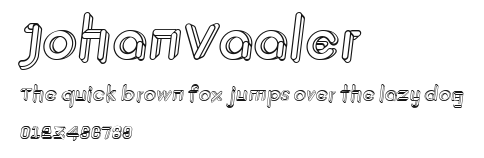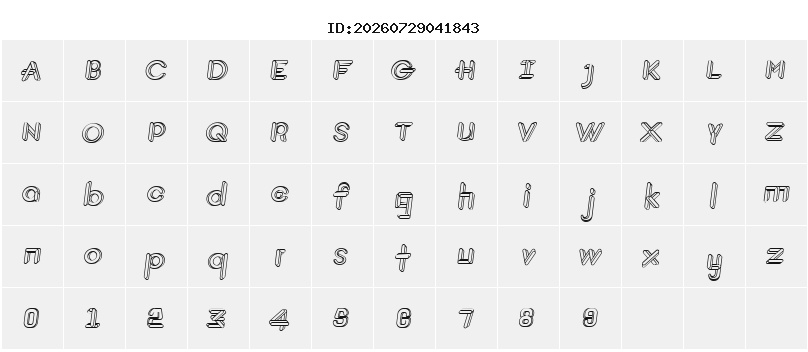
JohanVaaler Preview
• Font Name: JohanVaaler
• Font Style: BoldItalic
• Font ID: TomTor: JohanVaaler BoldItalic: 2009
• Full Font Name: JohanVaaler BoldItalic
• PostScript Name: JohanVaaler-BoldItalic
• Character Count: 252
• Designer: Tom Tor
• Manufacturer: Tom Tor
About JohanVaaler.ttf